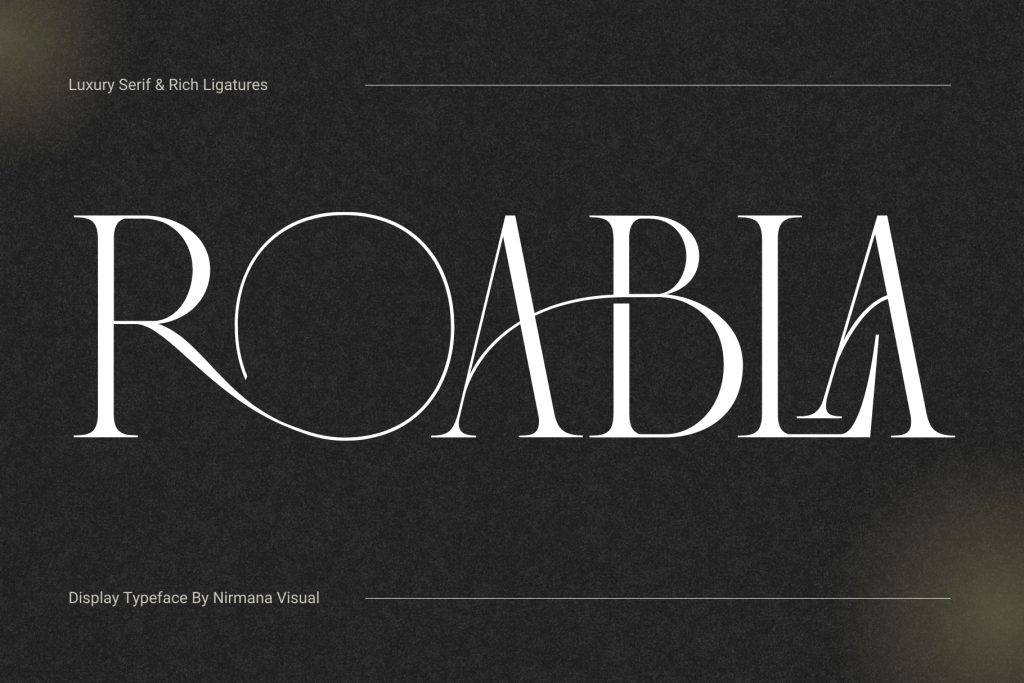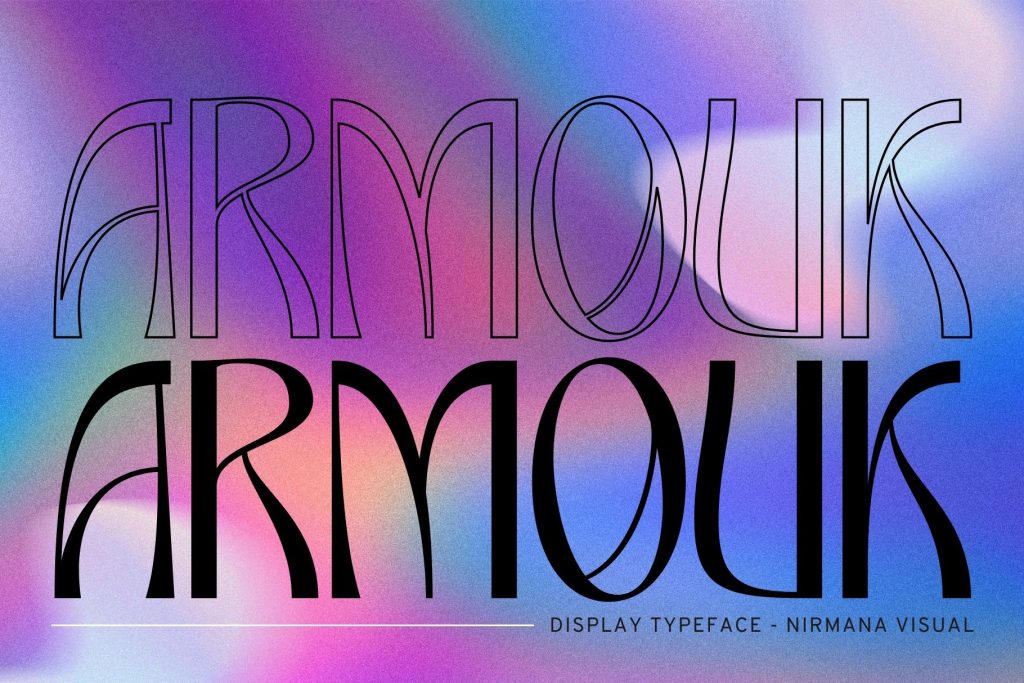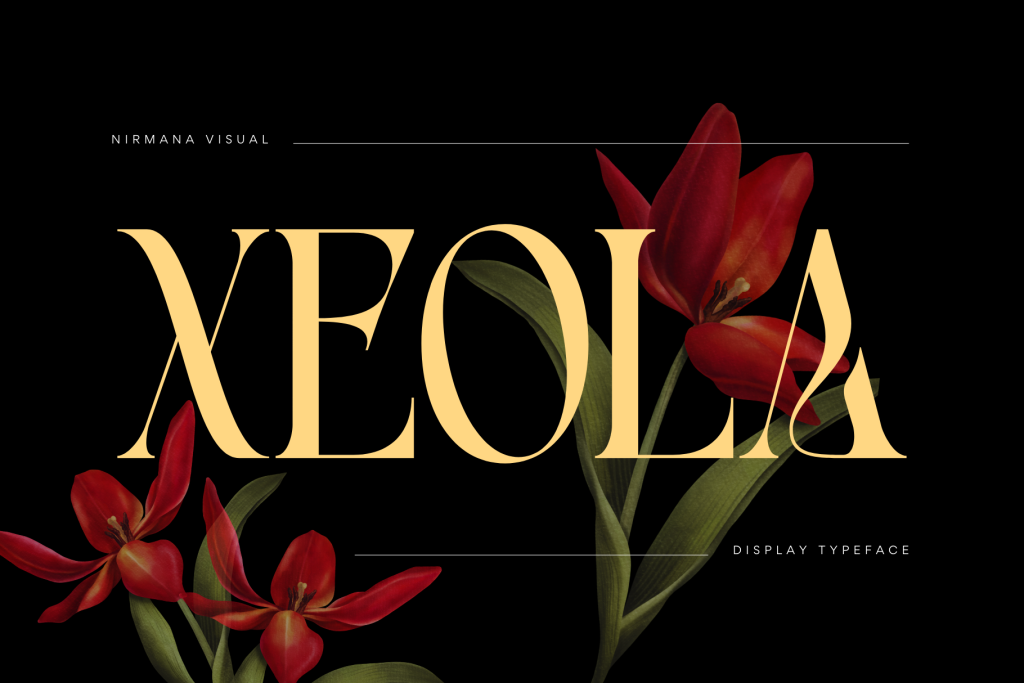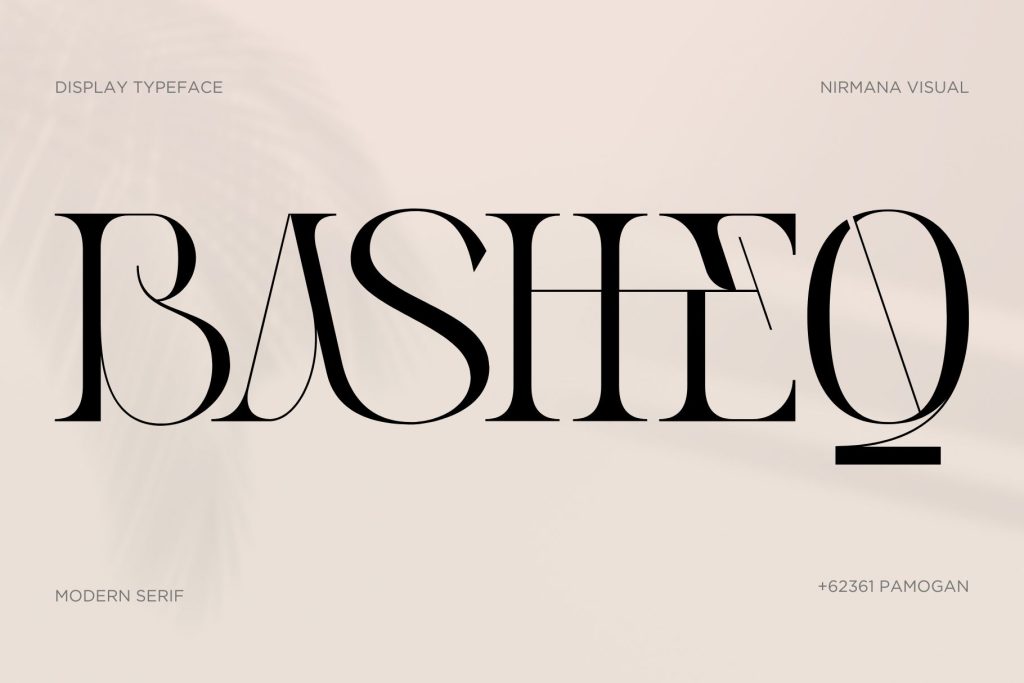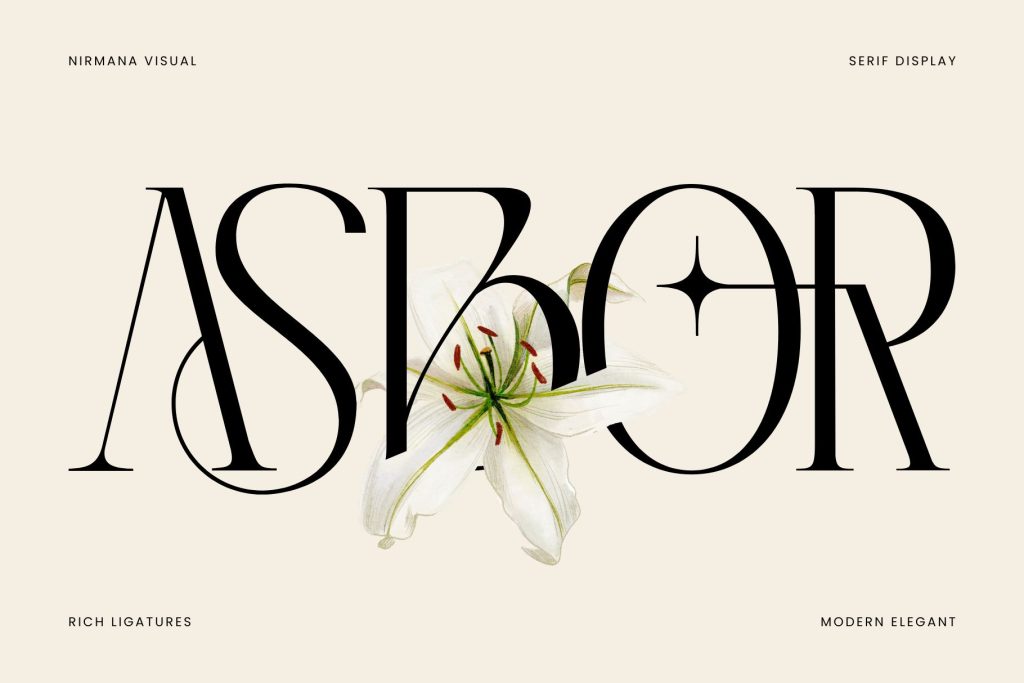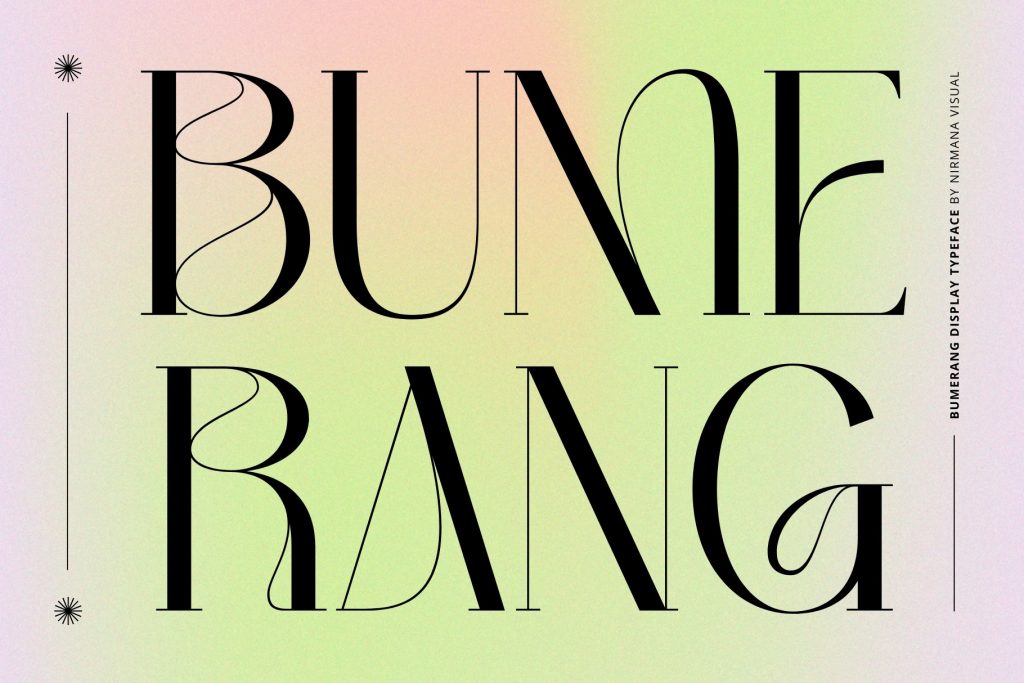
font for packaging to consider
Font packaging is born when creativity, typography, and raw visual seduction collide. Known for its visual specialty, this font acts as a creative role in brand marketing. While enhancing the brand’s overall aesthetics, a well-designed packaging typeface will ensure that a product stands out on the shelf in the fast-paced market.
Key Takeaways:
• Font’s packaging is a creative way for marketing and branding.
• The font’s packaging should be eye-catching to draw viewers’ attention.
• Fonts for packaging enhance both appearance and functionality.
Top Curated List of 2025 Font Packaging
Whether you’re designing for food or drink packaging, these fonts are versatile to best suit your artistic project. So, check out the top-notch collection of packaging fonts from Nirmana Visual below to enhance your design.
1. Roabla
Roabla is the perfect font to add luxury flair to a packaging design project. The sharp tail and thin curved lines look elegant to create a wonderful font with a sophisticated vibe, making it highly versatile for a high-end fashion brand.
2. Gofak Classy
Gofak Classy is one of the best fonts for packaging that presents the eccentric vibe with a classic touch in one go. It naturally mimics the look of handwriting with quirky alternates and semi-bold lines for mesmerizing designs. Plus, the star glyphs will truly capture the viewer’s attention on the trendy shoes packaging design!
3. Mase
Mase is a perfect kit to create contemporary packaging design on makeup goods with modern Roman style. The stiff uppercase and lowercase, along with its compact lines and small serifs, are guaranteed to boost timeless packaging design. The ligature is distinctive yet pretty legible.
4. Xeola
With a fluttering style of letters and a thin-thick combo, Xeola is a highly versatile font packaging. Xeola’s subtle ligatures also make sightseeing comfortable without losing its modern atmosphere. The font’s excellent readability is pretty good with peculiar alternates. You can use this typeface for the exclusive packaging of perfume goods.
5. Basheq Vintage
Basheq Vintage boosts a stylistic atmosphere with its flowy alternates. While it looks complex, the ligature also looks charming with its dynamic collision. The use of slanted lines within letters is both harmonic and delicate, making it ideal for vintage-style packaging design.
6. Black Aroug
Known for its swag alternates, Black Aroug is a top choice for filling t-shirt packaging design. Its sleek and futuristic touch is designed to bring an edgy edge to your projects. This typeface is less readable, but it quickly grabs viewers’ attention due to its high artistic value.
7. Asbor Fashion
Fancy a clean and artistic jewelry packaging design? Asbor Fashion can be your top font selection with geometric shapes to boost the project’s attractiveness. Every letter is straight mixed with organic curves, looks lavish, and is fascinating under one roof.
8. Abang Fashion
Abang Fashion is the best fonts for food packaging that upholds a traditional atmosphere through its Indic-style forms. The curved lines, along with bold letters and wide tails, are a good combination to embody food cultural heritage.
9. Bumerang
Bumerang typeface appears sleek, with a stitching effect on each letter stroke. The curved stroke looks sweet and neat, perfect for girl stuff packaging design. The alternate is also unique, adding a visual interest and distinctive look.
10. Armouk
Last but not least, Armouk is a modest and minimalist fonts for packaging design in a clothing brand. It’s filled with trembling and eclectic details without beating the whole text. Interestingly, uppercase and lowercase look trendy, building strong energy and urban aesthetics to reach a youthful demographic.